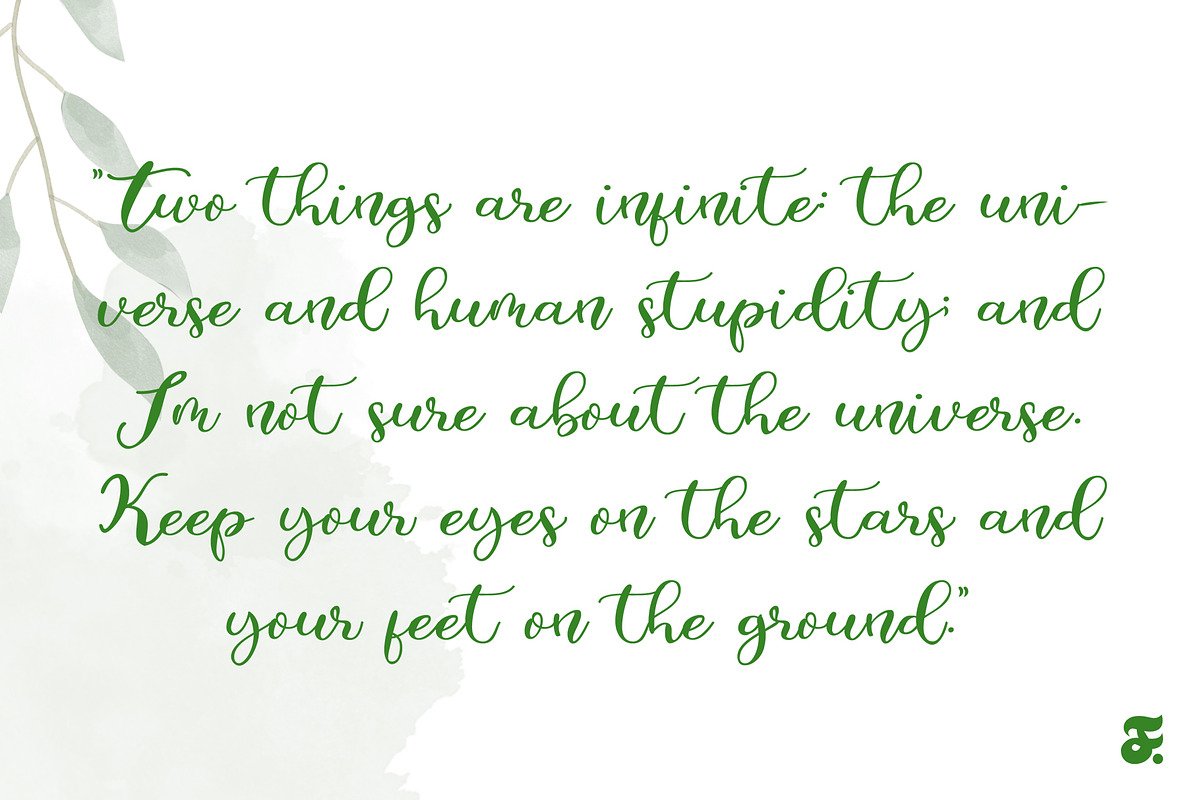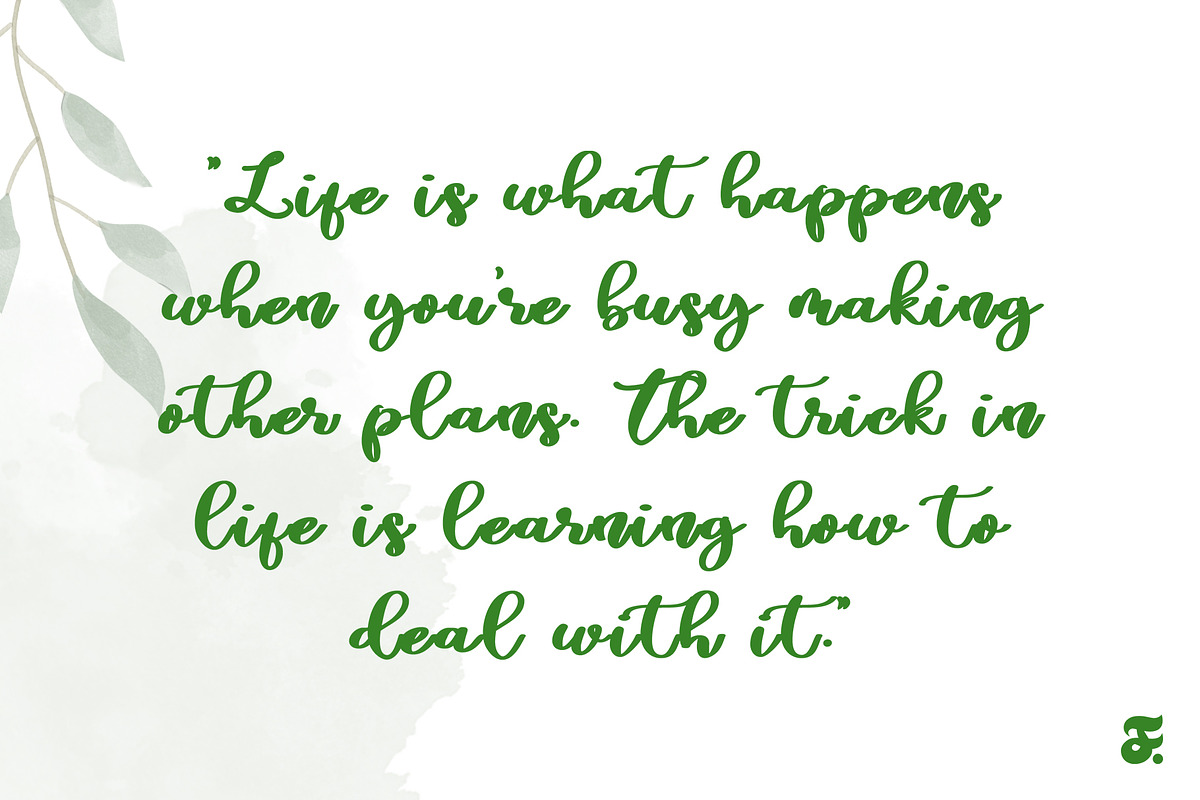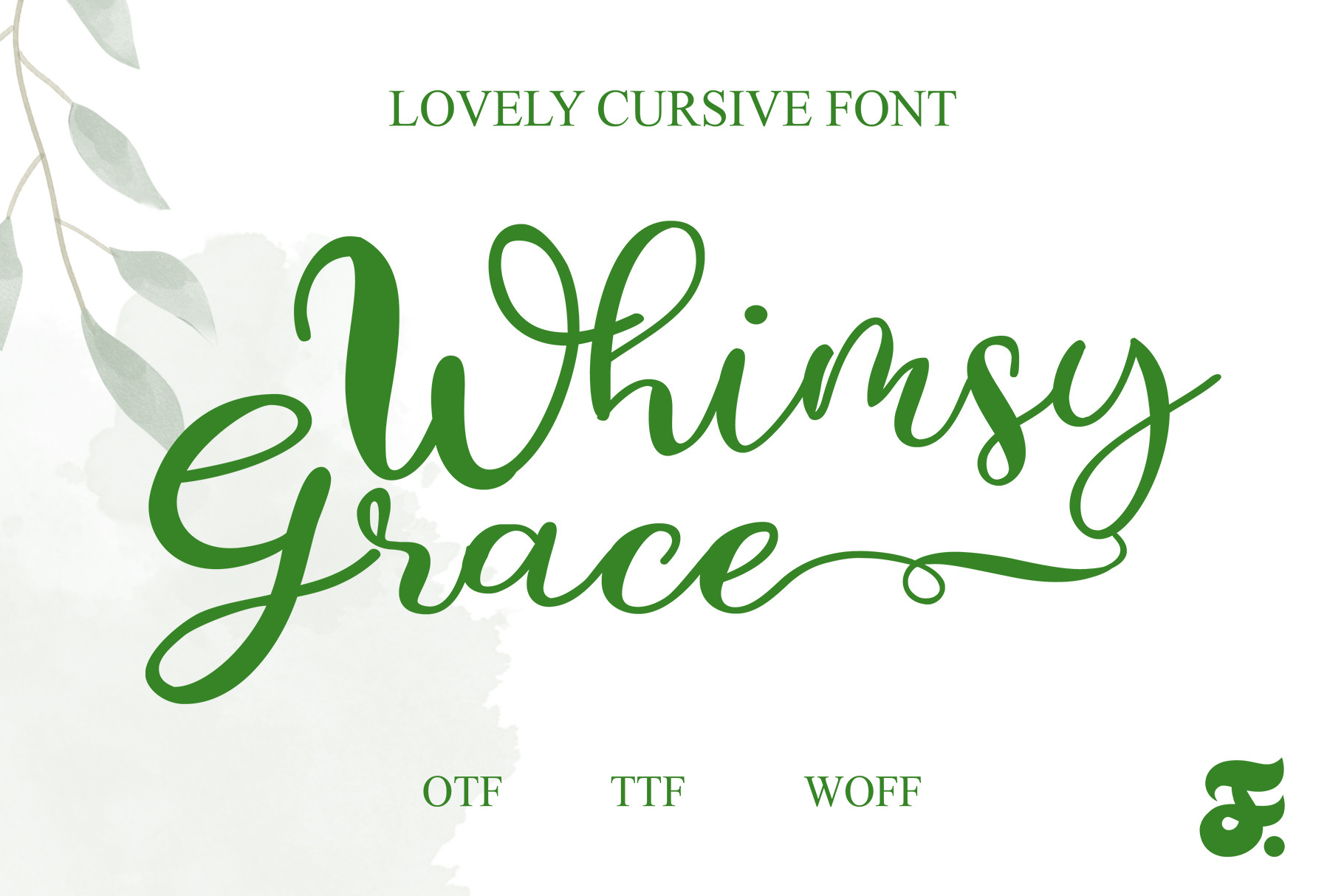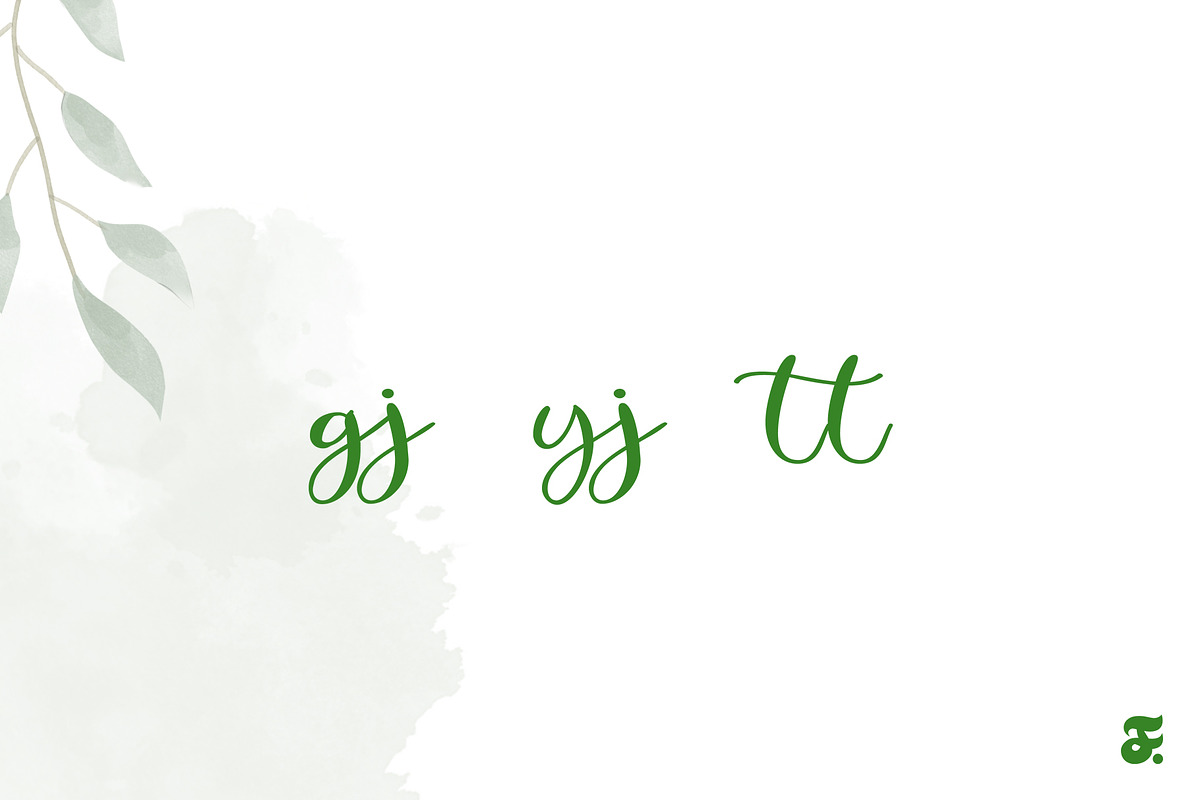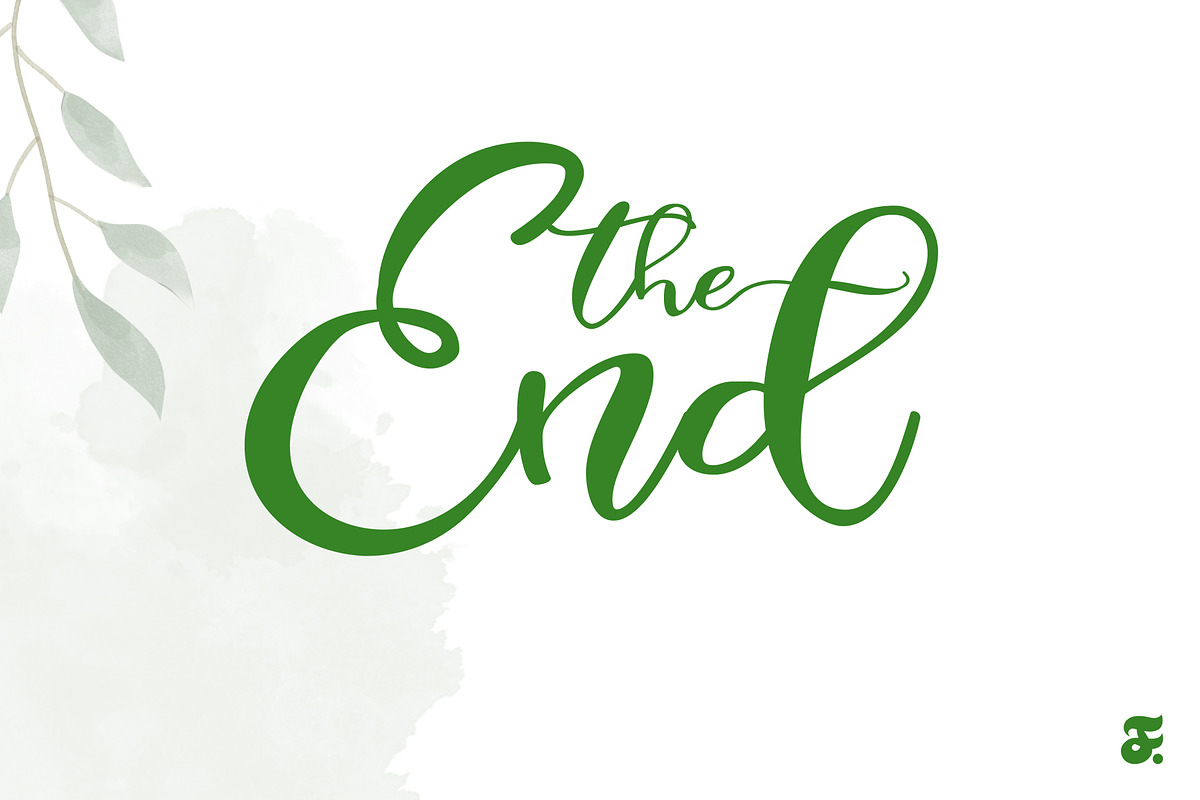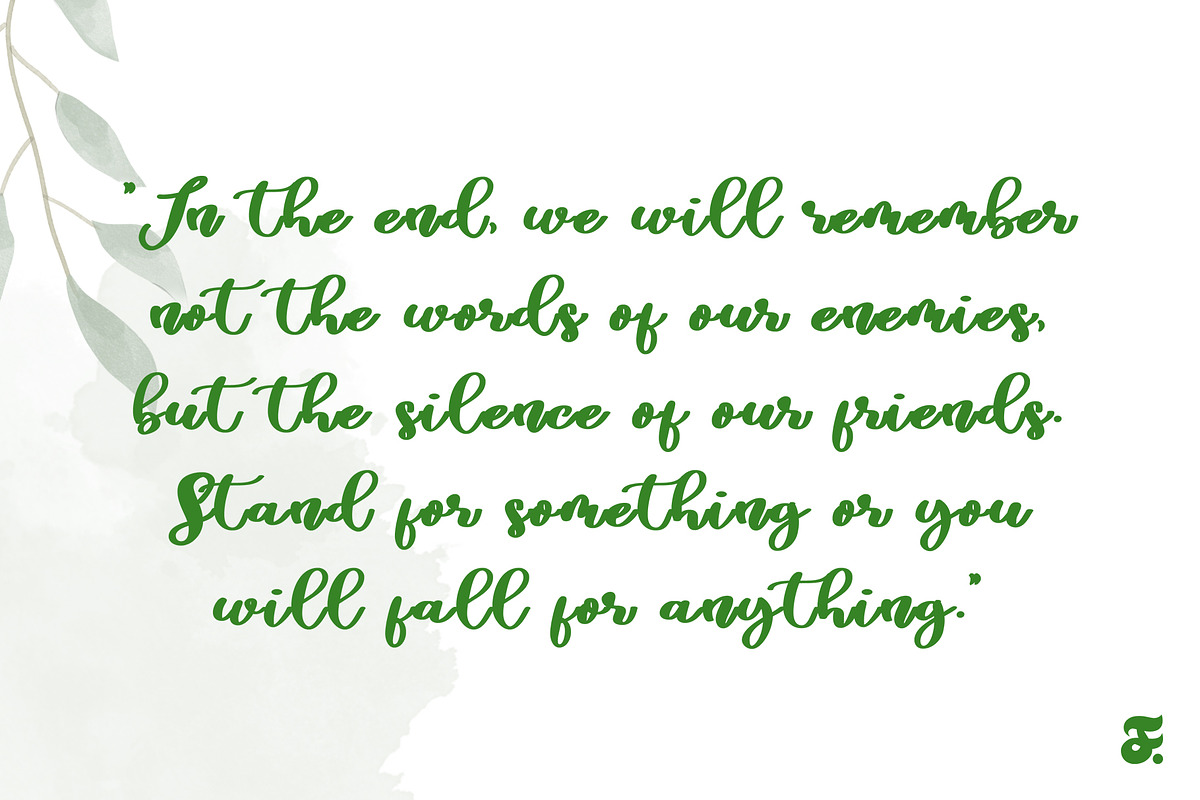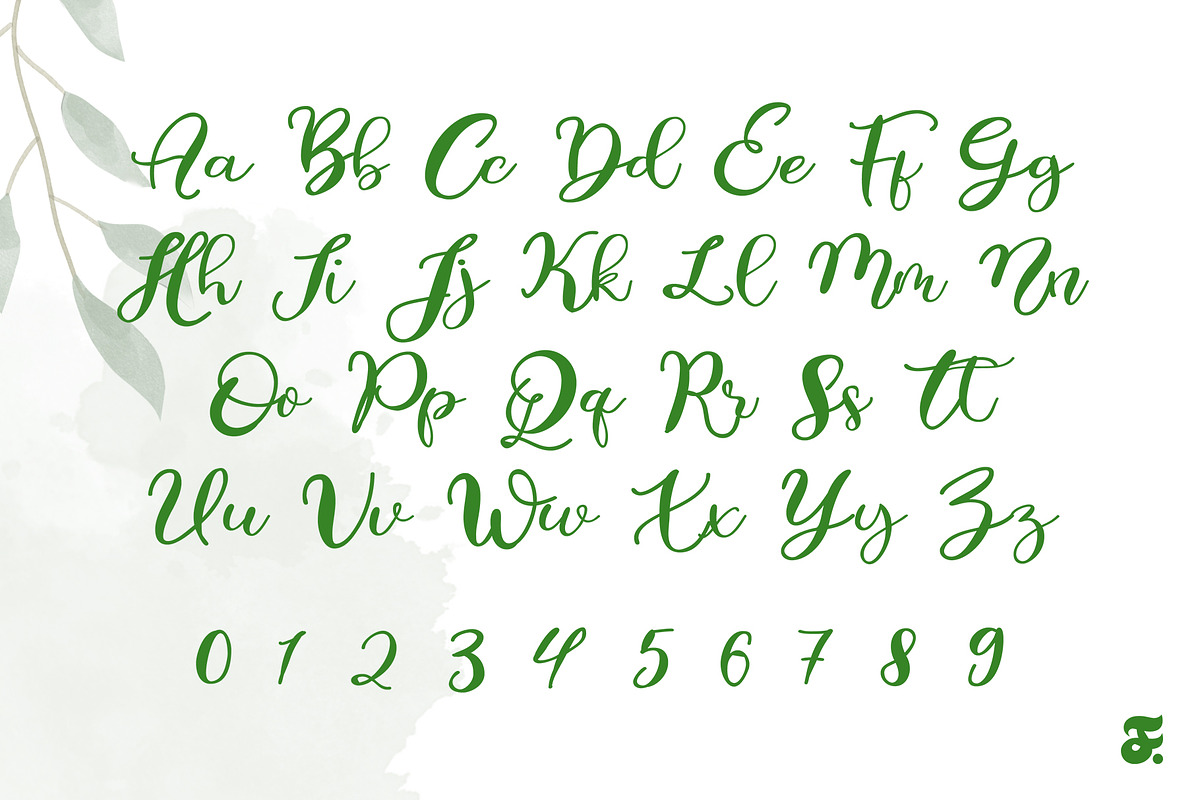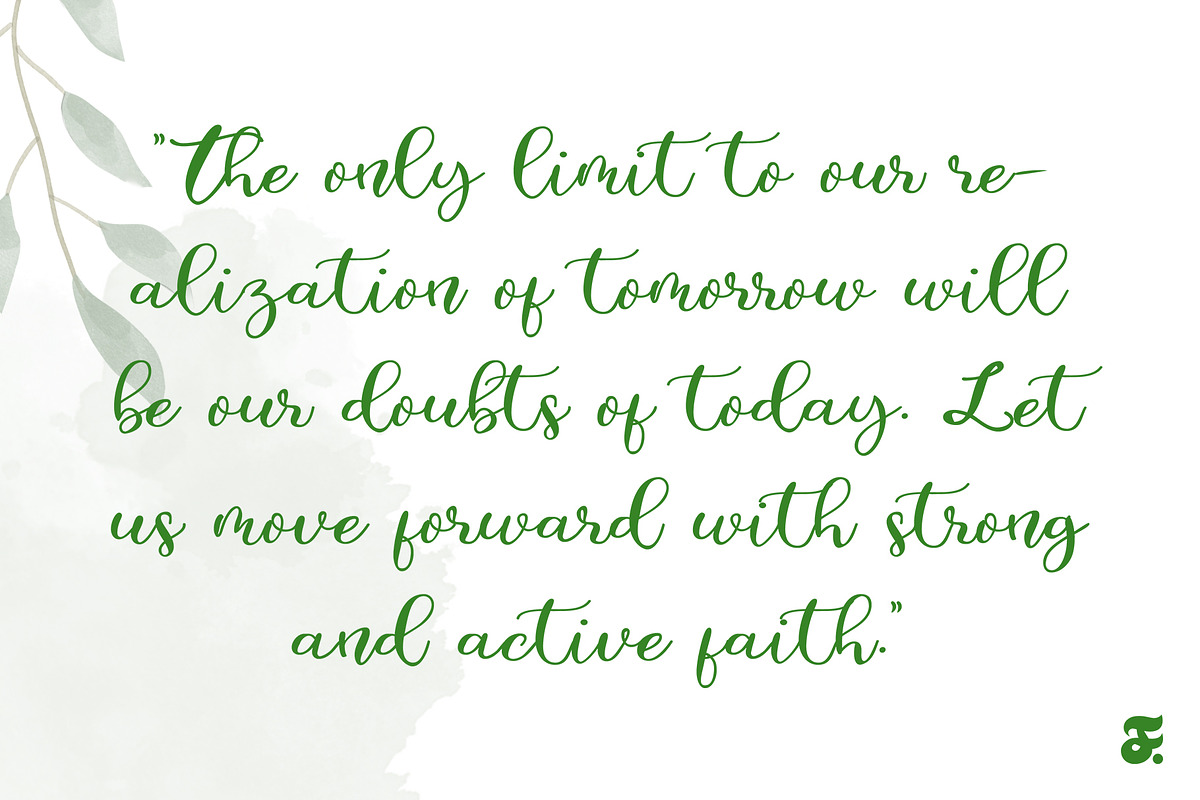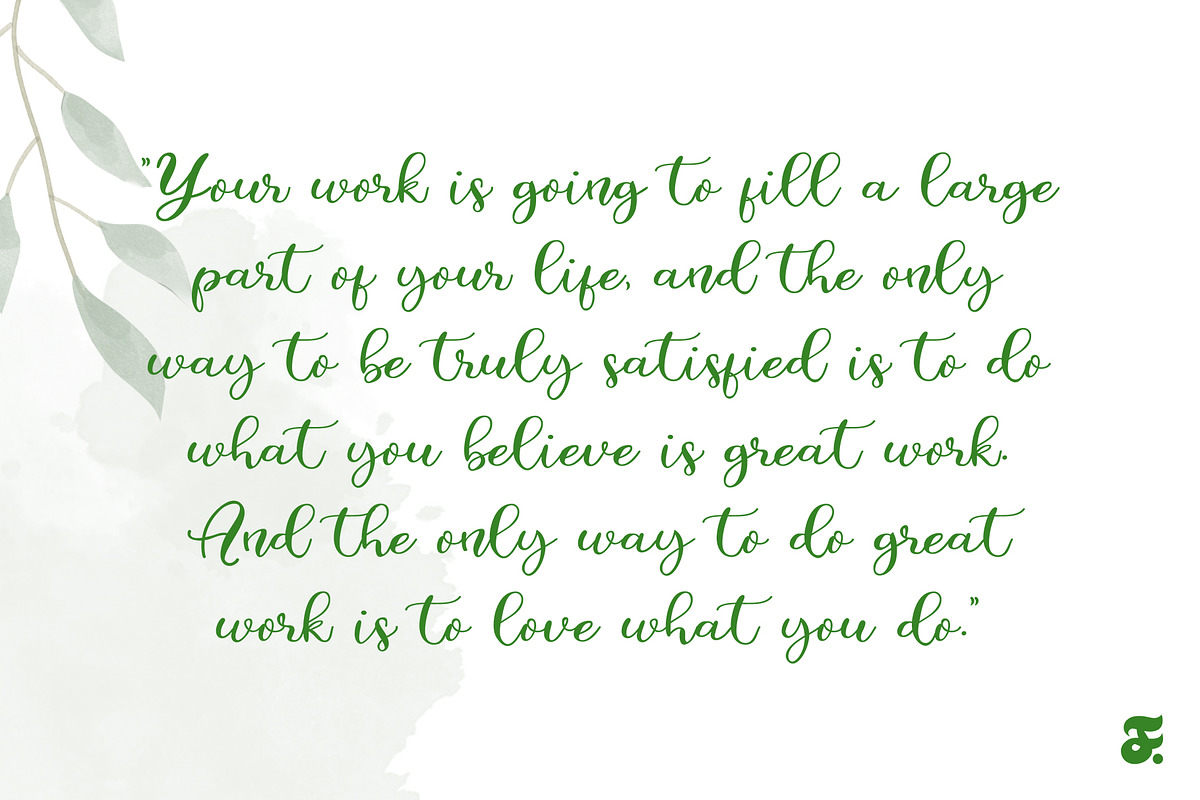
Whimsy Grace Script Font
Whimsy Grace Script Font is a delightful and charming typeface that effortlessly captures the essence of whimsical elegance. With its graceful curves and playful strokes, this font brings a touch of magic to any design project. The script style of Whimsy Grace exudes a sense of lighthearted sophistication, making it perfect for a wide range of applications, from invitations and greeting cards to branding and packaging. The font's intricate detailing, combined with its flowing lines, adds a sense of personality and warmth that can elevate the overall aesthetic of your creative endeavors.
What sets Whimsy Grace apart is its versatility. Whether used for a wedding invitation, a children's book cover, or a boutique logo, this script font seamlessly adapts to various themes and moods. Its carefully crafted characters maintain a sense of consistency while allowing for an organic and whimsical feel. The charming loops and swashes of Whimsy Grace Script Font provide designers with a creative playground, enabling them to infuse a sense of playfulness into their projects without sacrificing elegance.
Designed with an eye for detail, Whimsy Grace Script Font is a testament to the artistry of typography. Each letter and curve is meticulously crafted to ensure a harmonious flow and readability. Whether you're a professional designer or a DIY enthusiast, Whimsy Grace offers a touch of enchantment that adds a unique flair to your creations, making it a go-to choice for those seeking a script font that effortlessly balances whimsy and grace.